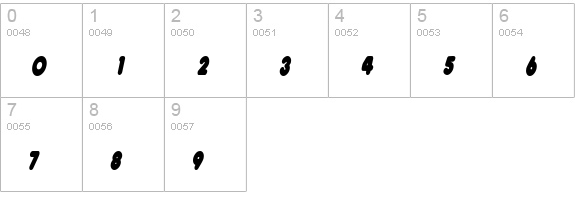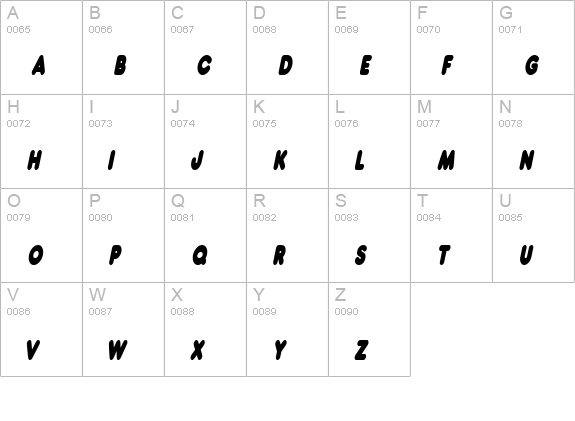
NeonCondensed Italic Font Details
NeonCondensed Italic is a distinctive, italic variant in the NeonCondensed typeface family \xE2\x80\x94 well suited to design and typography projects.
NeonCondensed Italic font is a sleek and modern typeface that exudes a vibrant and energetic feel. Its condensed design adds a unique touch to any project, making it perfect for headlines, titles, and branding materials. The italic styling provides a dynamic and stylish look that captures attention effortlessly. This font is not only visually striking but also versatile, suitable for a wide range of design projects. Whether you're working on a poster, website, or logo, NeonCondensed Italic font will make your text stand out with its bold and contemporary appearance. Best of all, NeonCondensed Italic font is available for free download at FontsMarket.com. You can easily access this eye-catching font and use it in your projects without any cost. Don't miss out on this opportunity to enhance your designs with the modern and vibrant style of NeonCondensed Italic font.